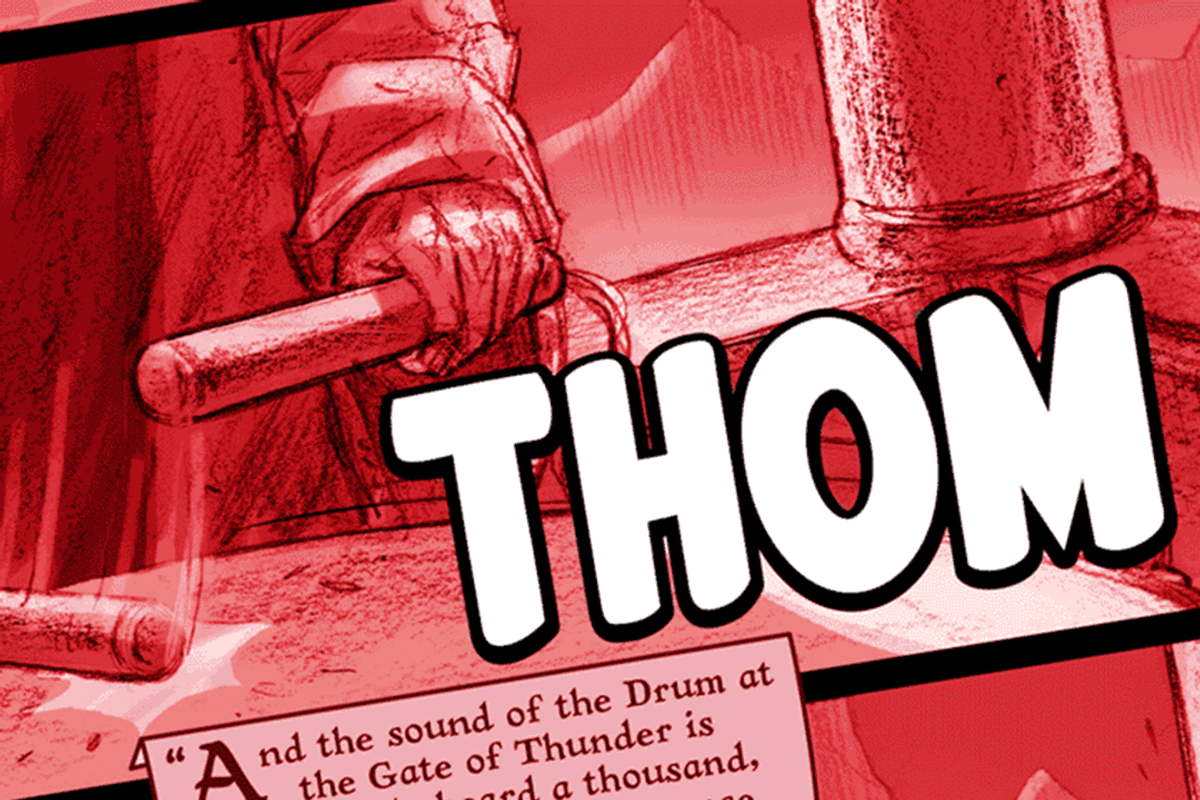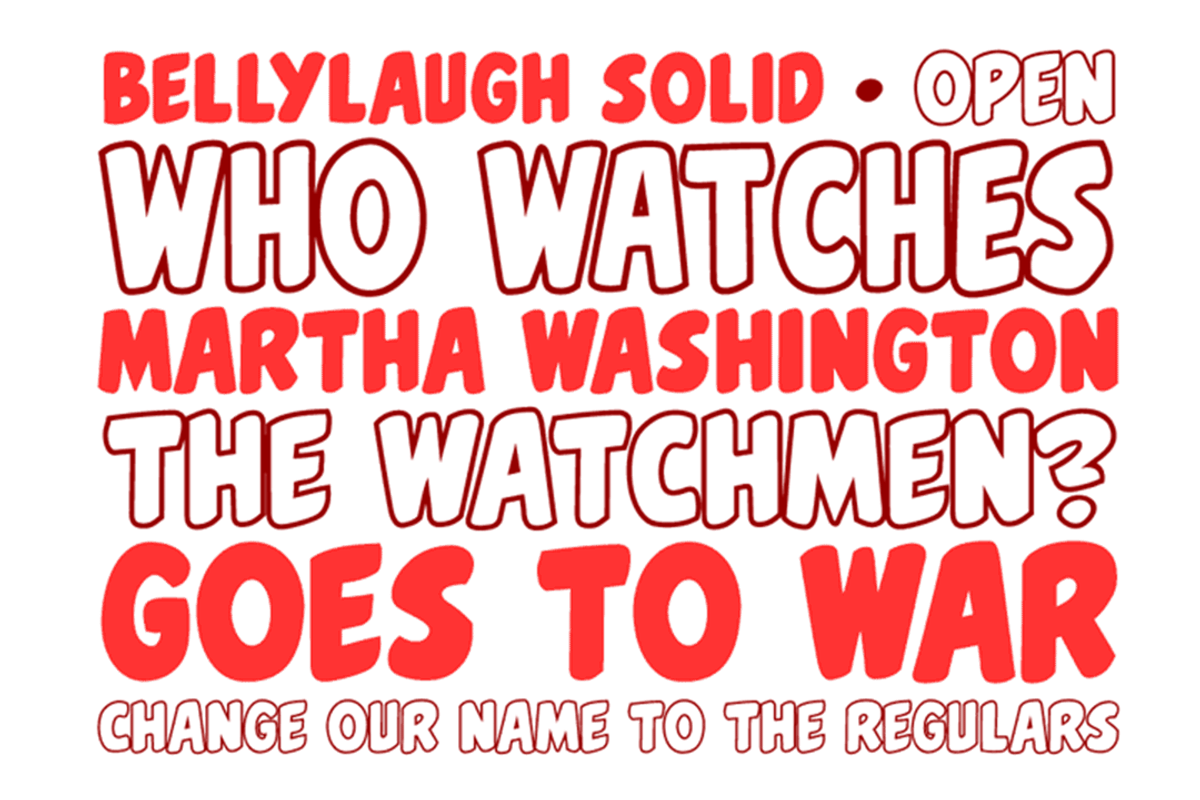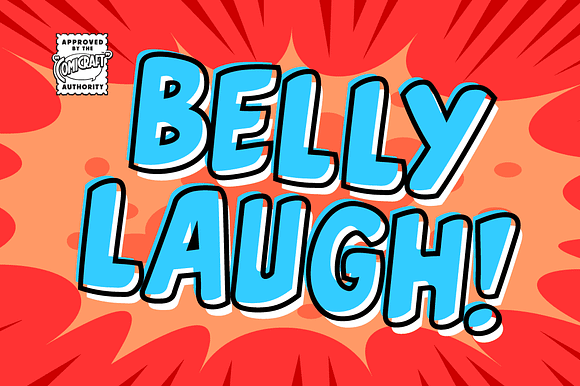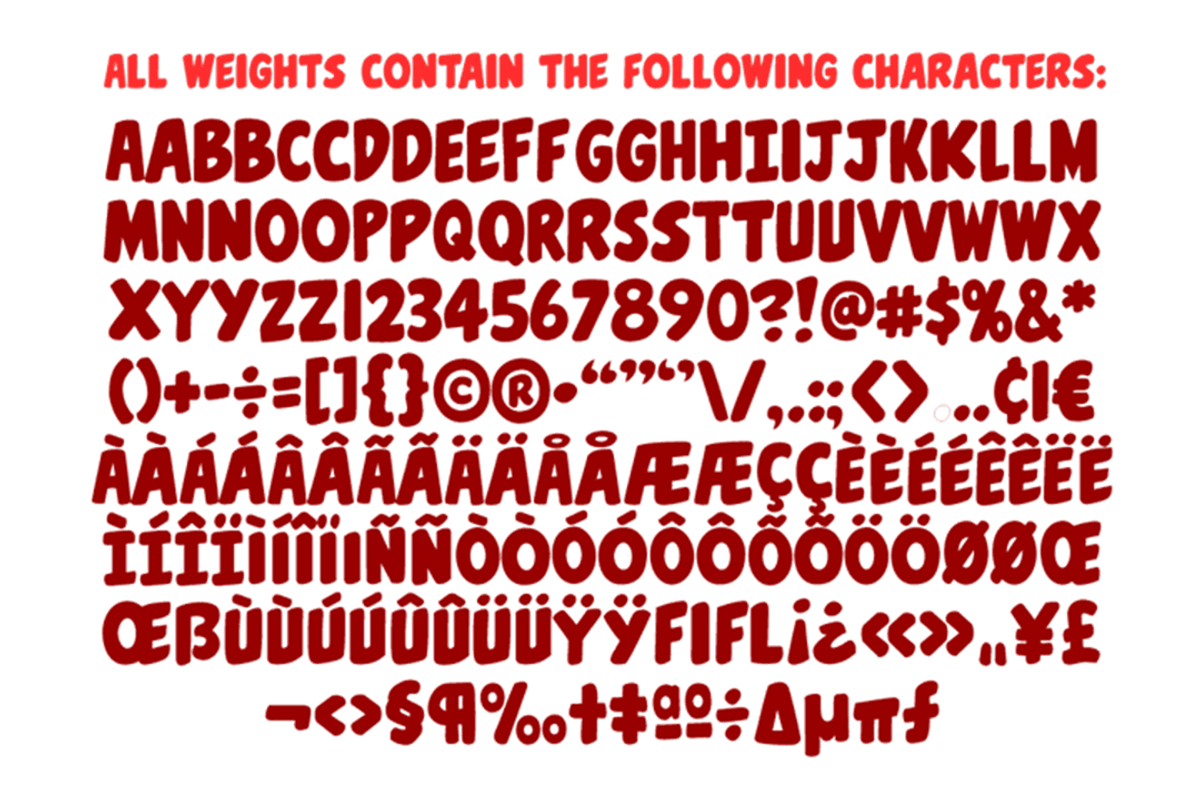
Belly Laugh - lively fun happy fonts
When we asked Dave Gibbons to name the typestyle he created for the sound effects in GIVE ME LIBERTY, he must've thought we were kidding. So we humored him, and now you can get in on the joke every time you use BELLY LAUGH!